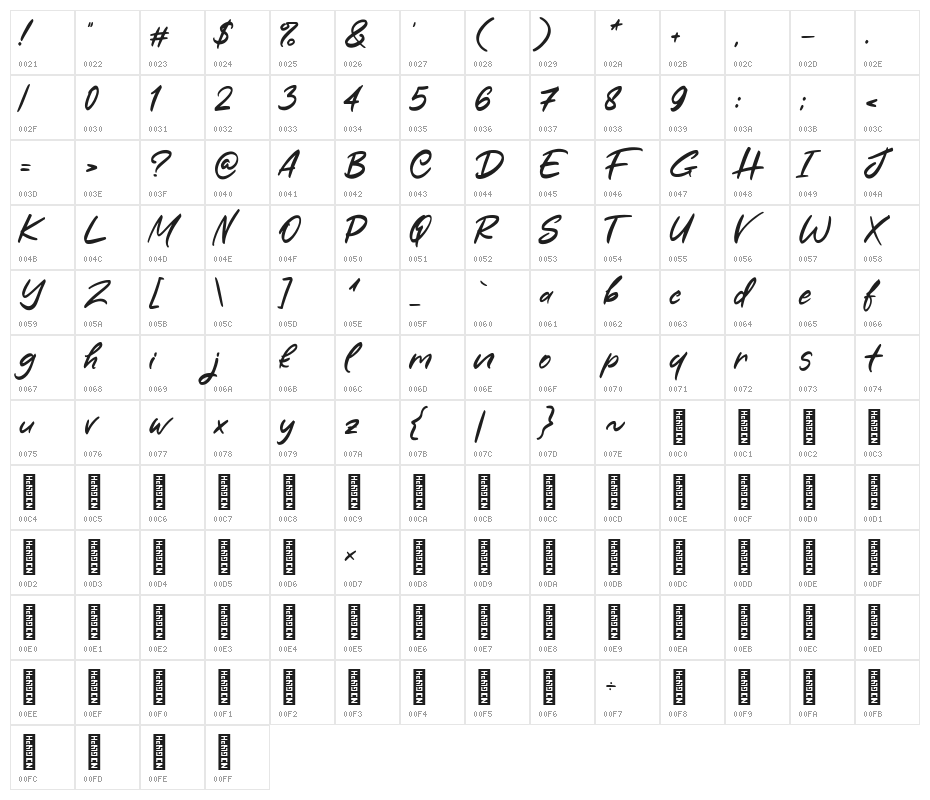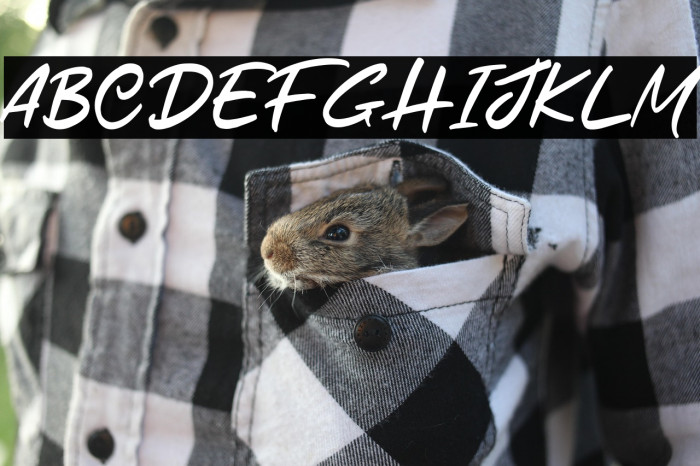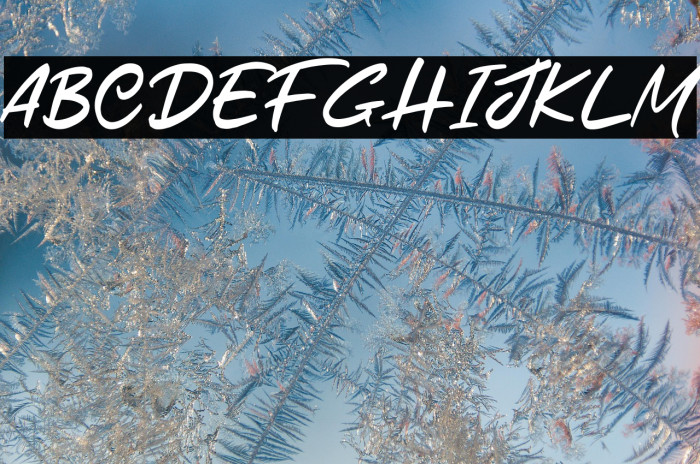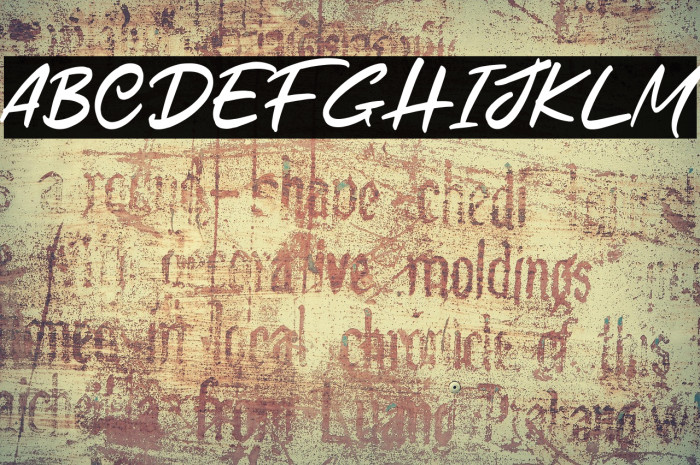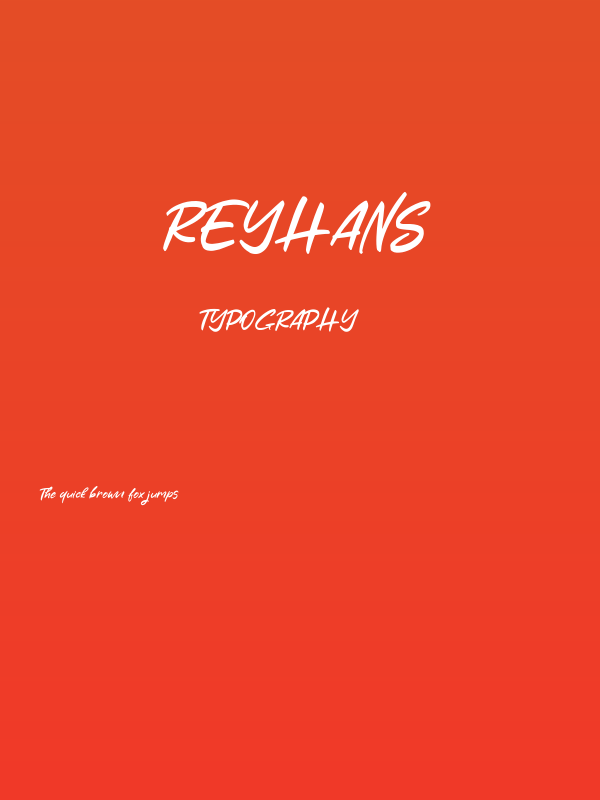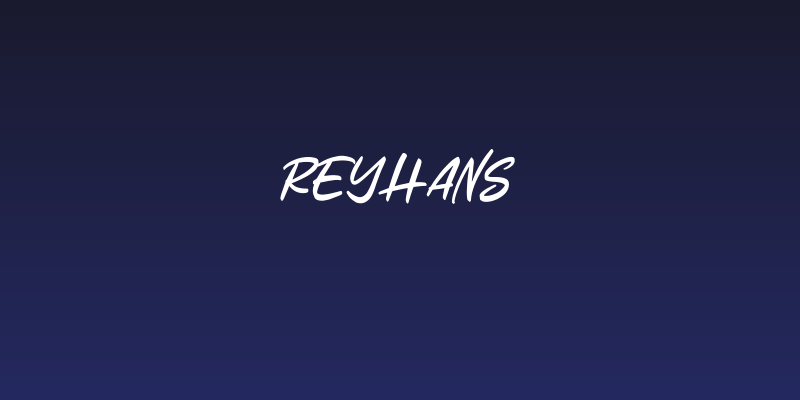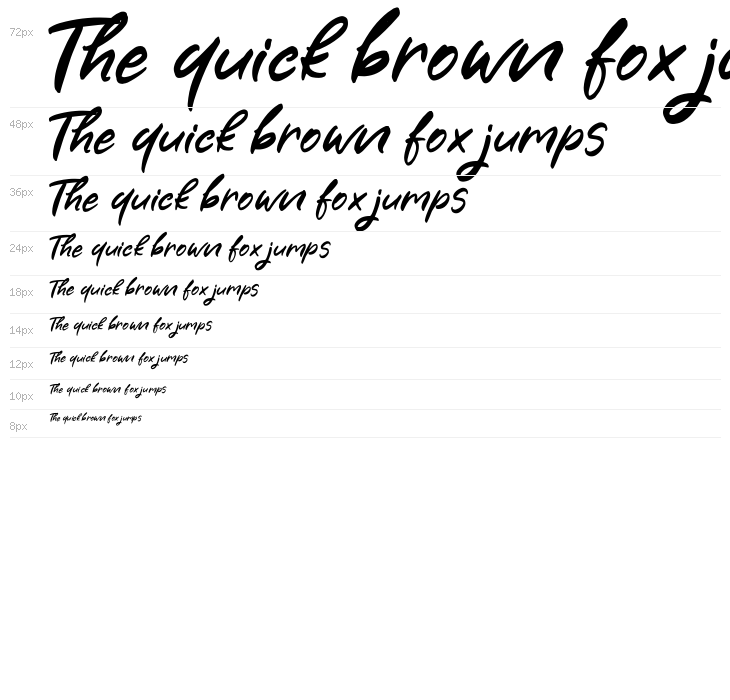
Reyhans Font
Reyhans Description
This font features a dynamic and expressive handwritten style, characterized by its fluid and cursive letterforms. The strokes are bold and confident, with a natural flow that mimics the motion of a brush or pen. Each character is distinct, yet they all maintain a cohesive look, making the text appear lively and energetic. The uppercase letters are slightly more angular, while the lowercase letters exhibit a smoother, more rounded appearance. Numbers and special characters are crafted with the same attention to detail, ensuring consistency throughout the font.